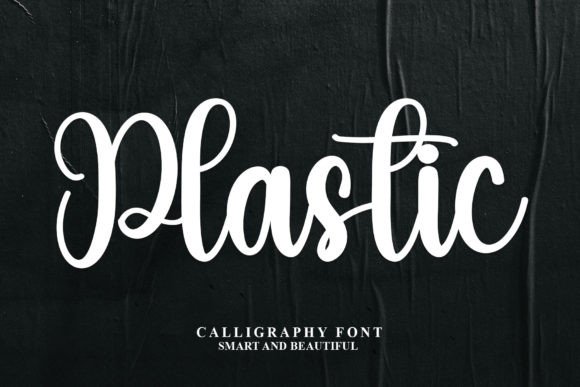
Behold Plastic Font, the Scriptwriting Masterpiece, Now Available for Your Design Arsenal!
Introducing Plastic Font, the striking handwritten font that captures the essence of casual elegance and versatility. This calligraphic marvel, meticulously crafted by Inermedia STUDIO, is designed to evoke a sense of down-to-earth charm, readability, and boundless creative possibilities.
With Plastic Font, you hold the key to transforming your design projects into captivating masterpieces. Its organic lines and flowing curves lend an irresistible personal touch to your creations, making them stand out from the mundane and resonate with your audience.
Unleash the Creative Potential Within You!
Whether you're a seasoned designer or just starting your creative journey, Plastic Font is your perfect companion. Its user-friendly nature makes it accessible to all skill levels, empowering you to effortlessly create stunning designs that leave a lasting impression.
With Plastic Font, you can:
* Design business cards that exude professionalism and individuality.
* Create social media posts that pop with personality and engagement.
* Craft website headers that capture attention and drive conversions.
* Produce logos that embody your brand's unique identity.
* Develop marketing materials that resonate with your target audience.
The possibilities are as limitless as your imagination!
Elevate Your Designs with Plastic Font Today!
Don't settle for ordinary fonts that blend into the background. Embrace the power of Plastic Font and watch your designs transform into captivating works of art. Join the ranks of creative professionals who have discovered the magic of this remarkable font and unlock your full creative potential.
Experience the Plastic Font difference now and elevate your designs to new heights!